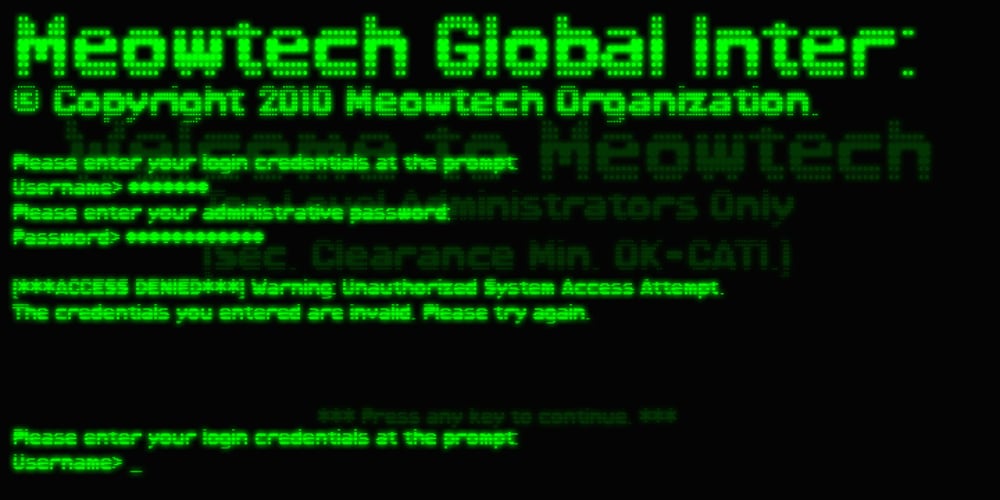
Geodot Font Family was designed by Luke William Turvey and published by Okaycat. Geodot contains 1 styles and family package options. Geodot is subtly faded with a bold graphic appearance. Inspired by atomic structure, it is defined by a harmonious arrangement of tiny spheres. Since the appearance varies widely depending on scale, this font has many possible applications. Geodot is extended, containing West European diacritics & ligatures, making it suitable for multilingual environments and publications.